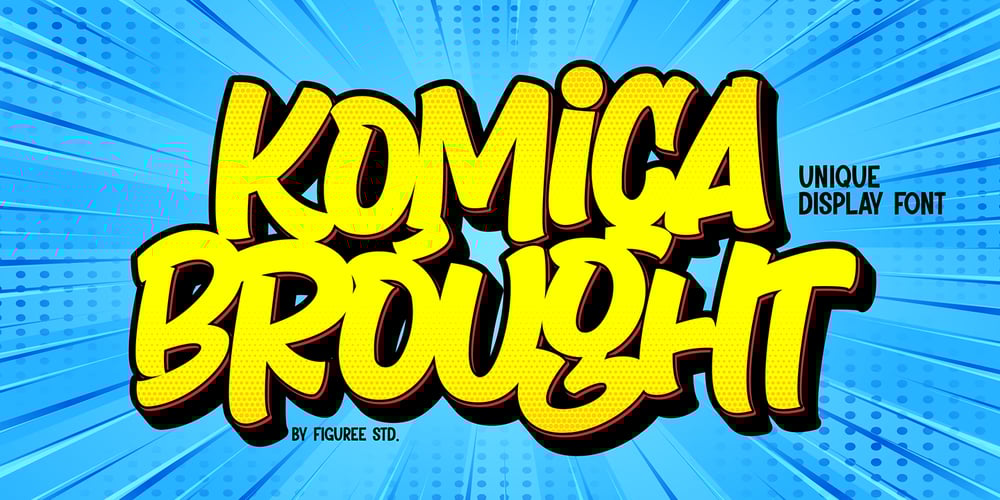
Komica Brought Font Family was designed by Icep Anwar Fadhil and published by Figuree Studio. Komica Brought contains 1 styles and family package options. Say hello to Komica Brought font. Made with love and joy. Comic look, so it will make your design more beautiful, cute, fun, and colorful.Features: Uppercase and Lowercase Numerals and Punctuation (OpenType Standard) Accents (Multilingual characters) PUA Encode I hope you can enjoy the font :)RegardsFiguree Studio